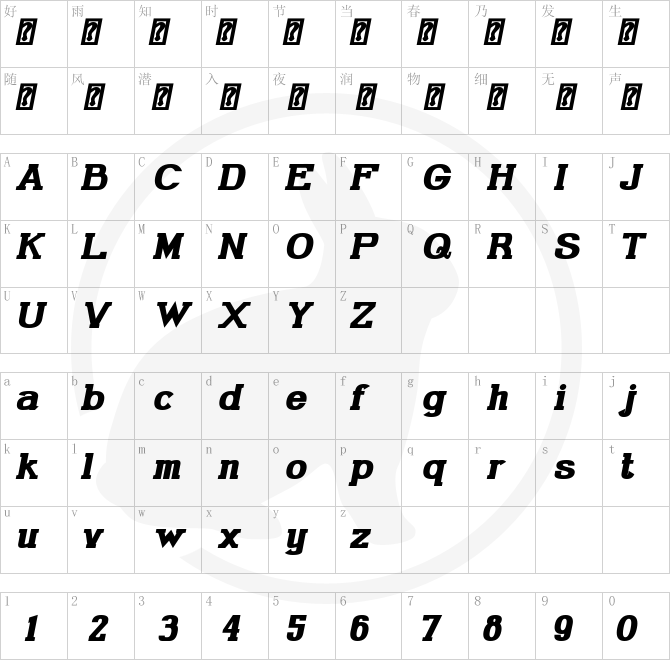
- Font Name:Gabriel Serif
- Full Name:Gabriel Serif Bold Italic
Gabriel-Serif-Bold-Italic.ttf is a very beautiful artistic font, Gabriel-Serif-Bold-Italic.ttf is widely used in the design and printing of various books and pictures,Gabriel-Serif-Bold-Italic.ttf has a strong visual impact,Gabriel-Serif-Bold-Italic.ttf is a commonly used font in newspapers, magazines and books, and is used in posters, e-commerce Poster design, store design, logo design, font design and other fields.Gabriel-Serif-Bold-Italic.